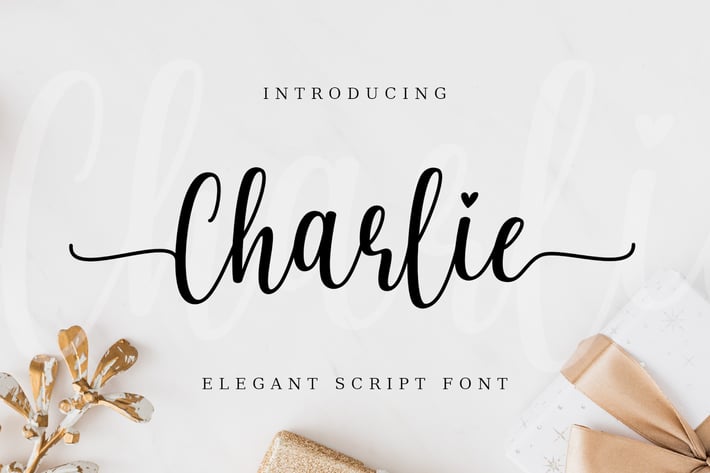
Charlie Delightful Script Font
Charlie is a delightful script font that radiates warmth and charm. With its smooth curves and casual handwriting feel, it’s perfect for greeting cards, branding, packaging, and heartfelt quotes.
Charlie adds a joyful and approachable tone to any project, making it ideal for both personal and commercial use.
Key Features:
- Friendly script with flowing curves
- Ideal for cards, packaging, and quotes
- Joyful and easy-to-read character set
- Great for casual and feminine branding
- Uppercase & lowercase characters
- Numbers and punctuation
- Multilingual support
Brighten your designs with the playful charm of Charlie.